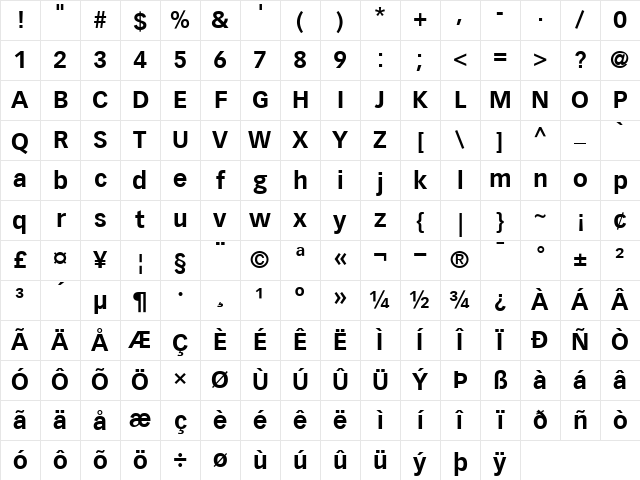
VectoraLH75 is a composed and adaptable typeface that performs quietly and consistently across a wide range of design contexts. Its bold stroke weight gives it real presence on the page.